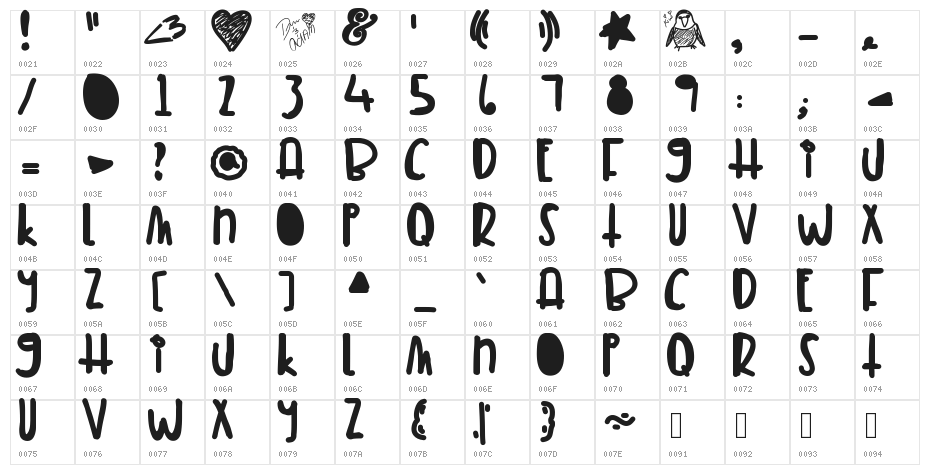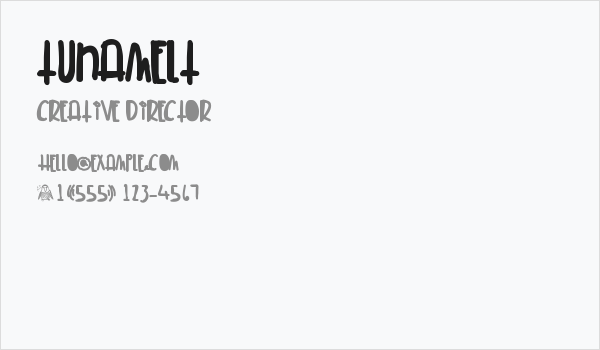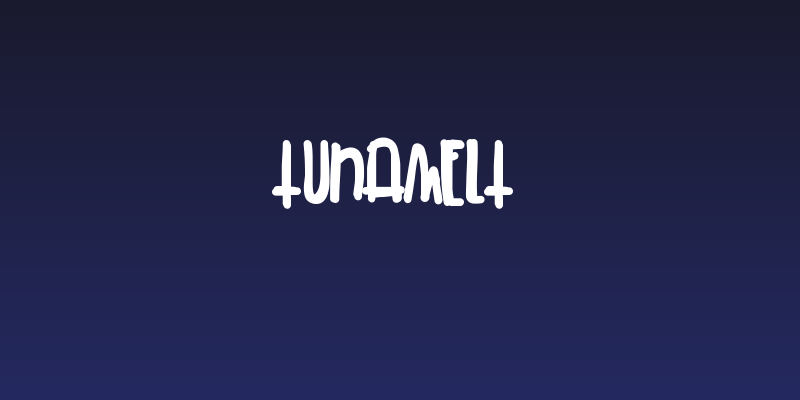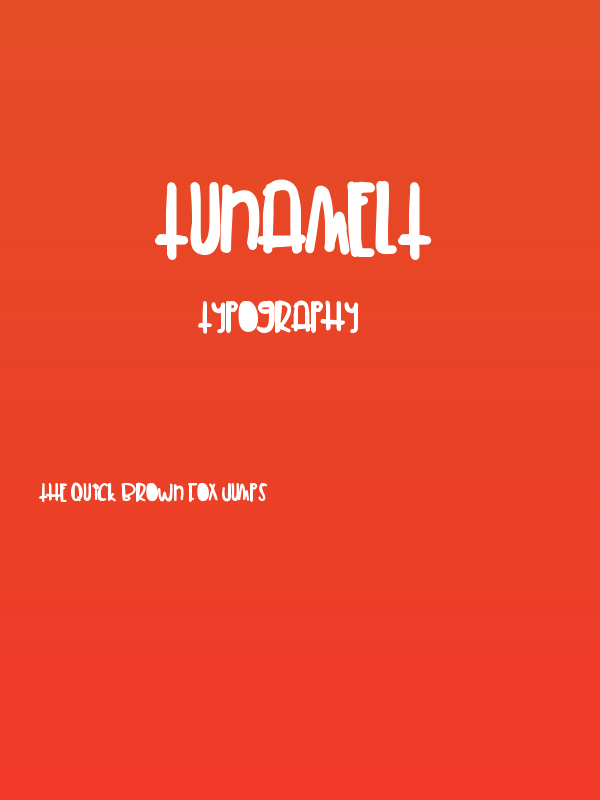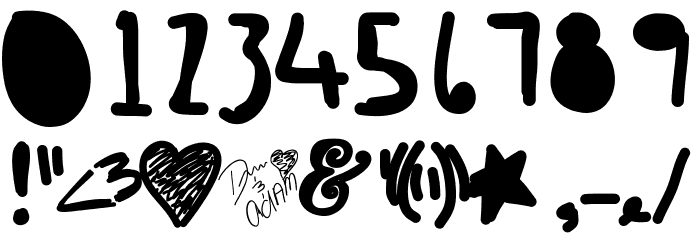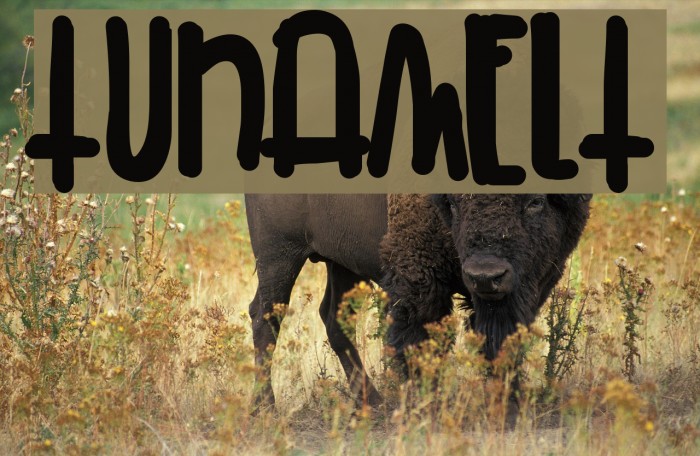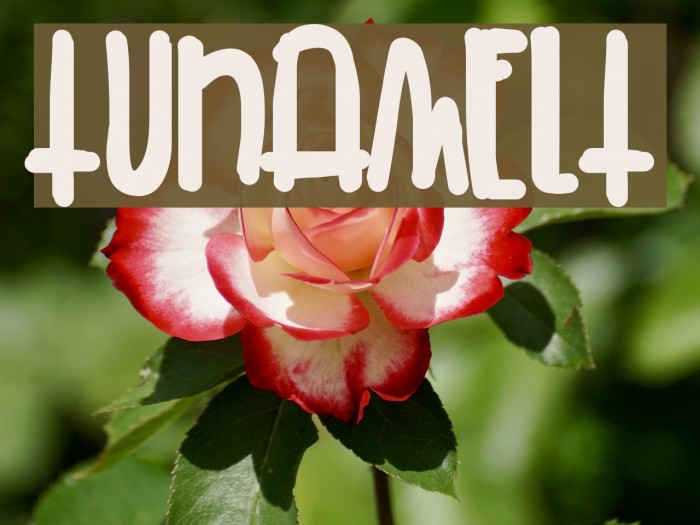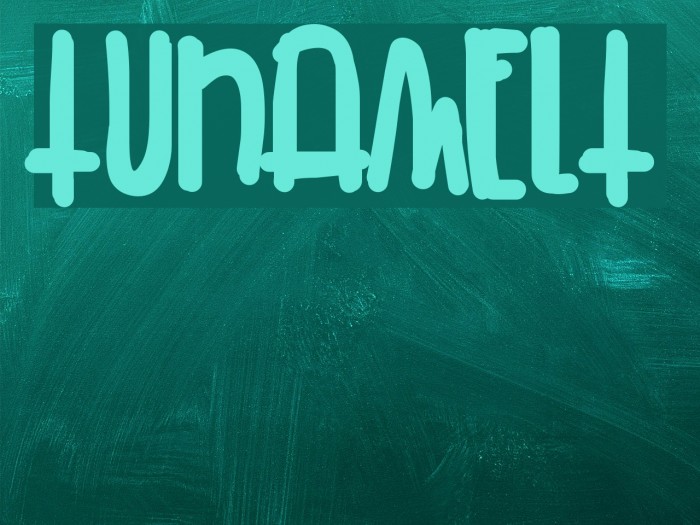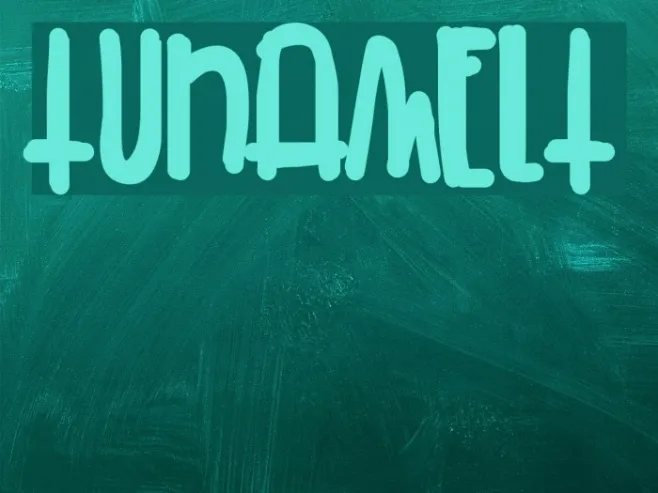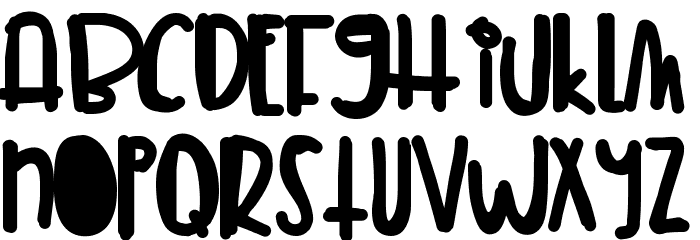
TunaMelt Font
TunaMelt Description
This font features a bold, playful style with a handwritten appearance. The characters are thick and rounded, giving them a friendly and approachable feel. The uppercase and lowercase letters maintain a consistent style, with a slightly irregular baseline that adds to the casual, informal vibe. The numbers and special characters are equally bold, with unique shapes that complement the overall aesthetic. This font's design is perfect for projects that require a fun and energetic look.
| Overall Style | Playful, Casual |
| Proposed Projects | Ideal for children's books, playful branding, greeting cards, and social media graphics. |